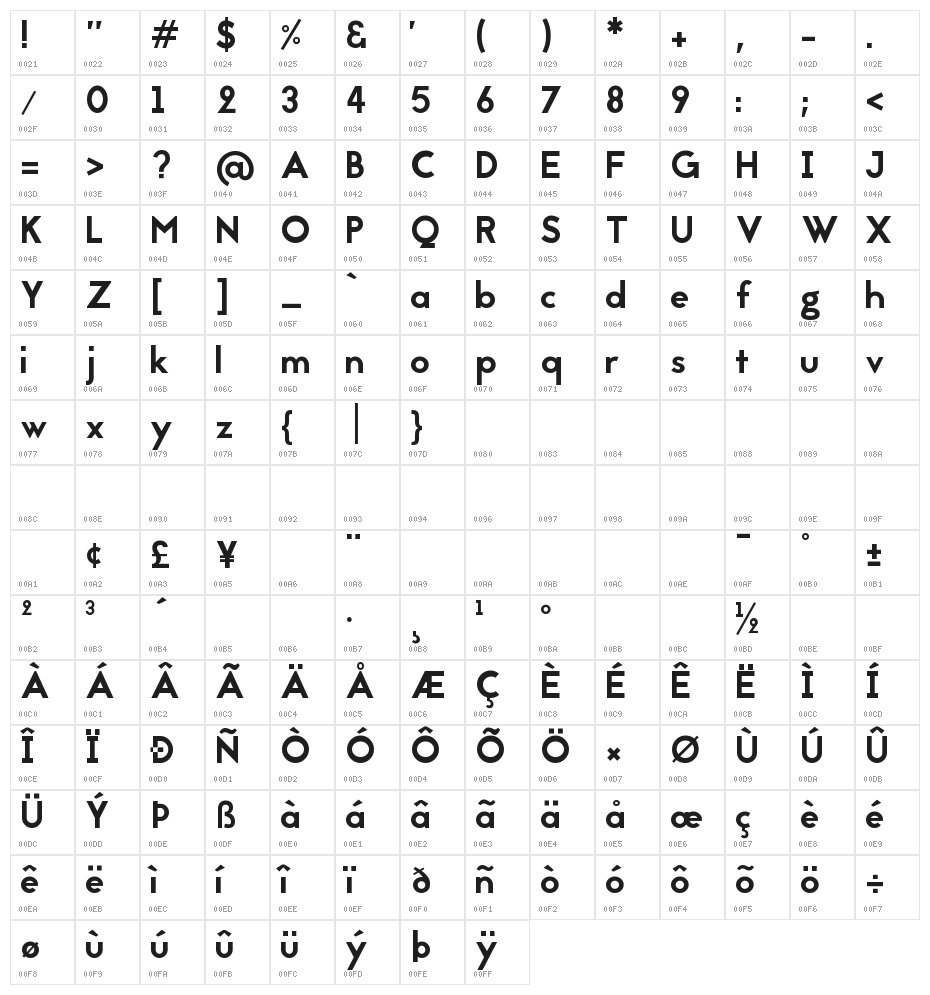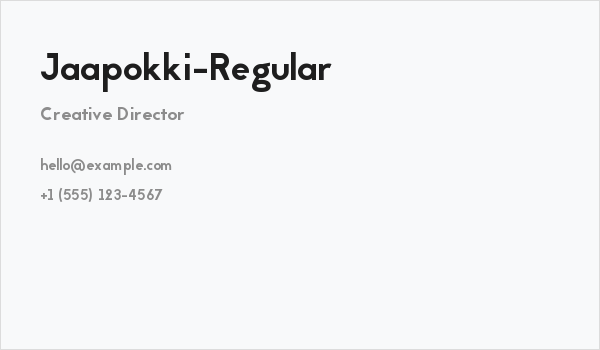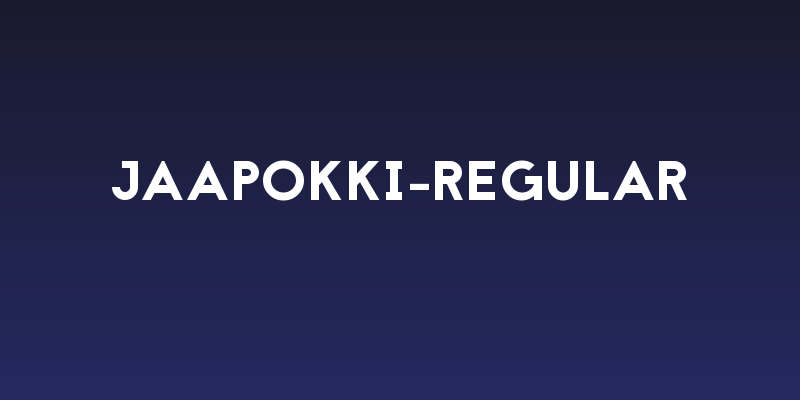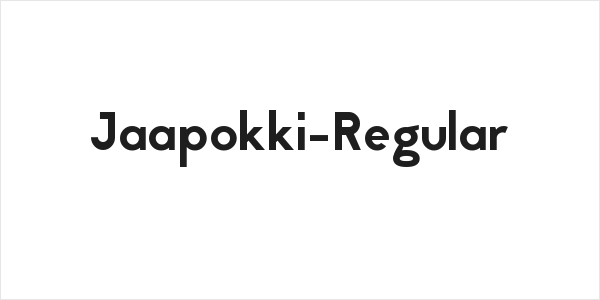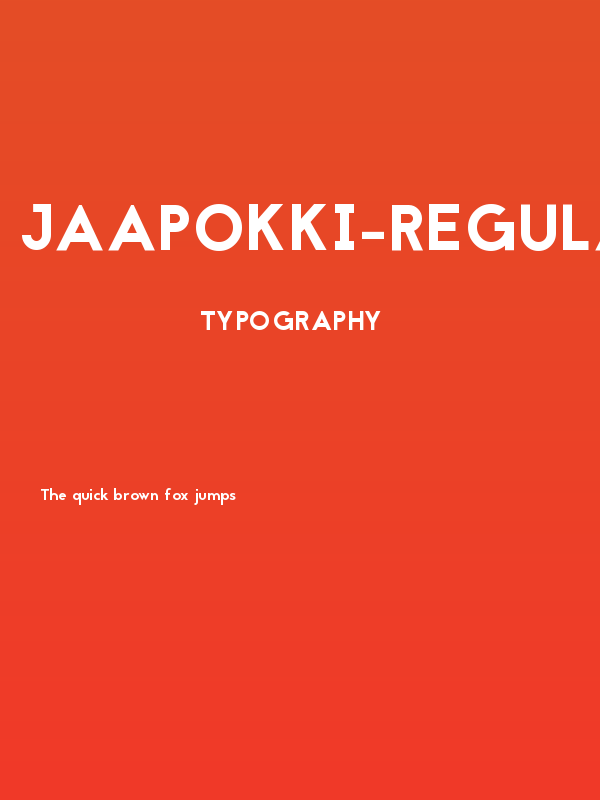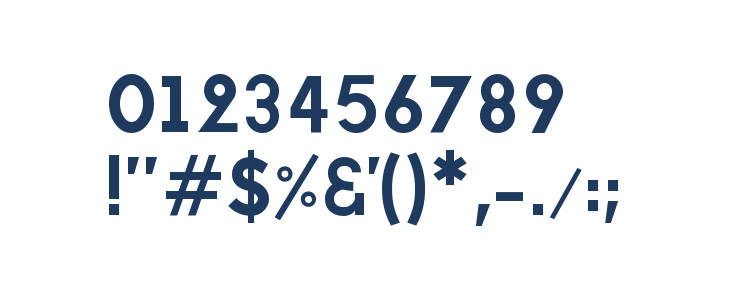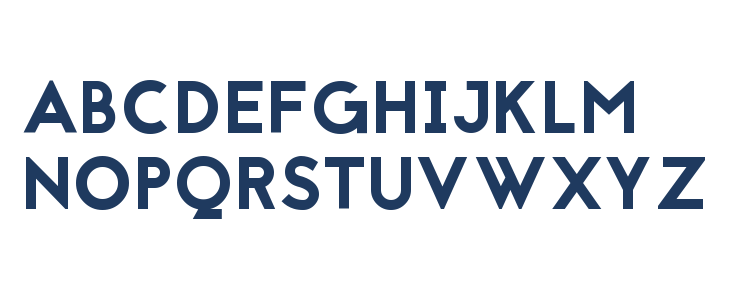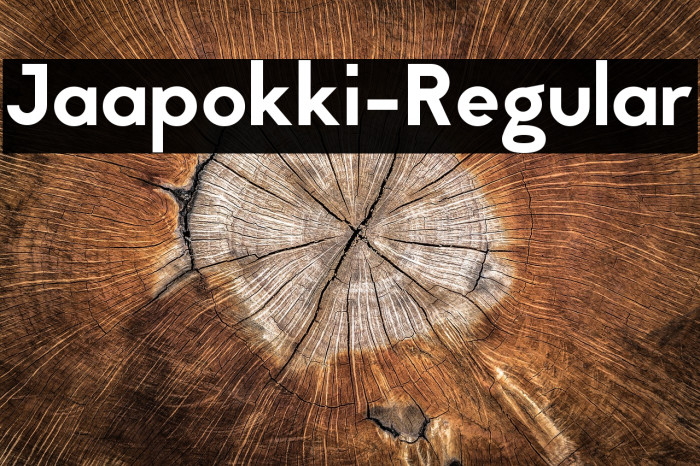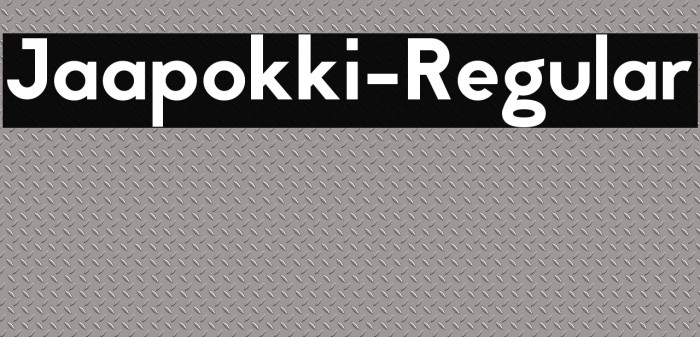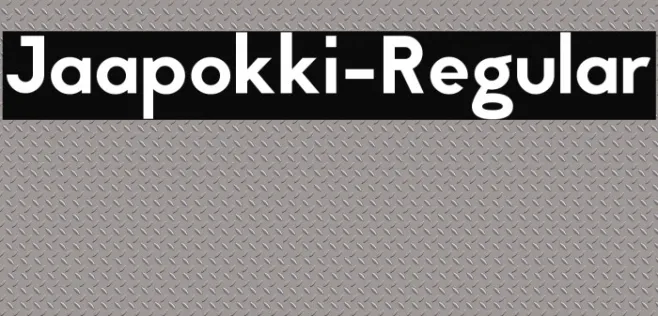
Jaapokki-Regular Font
Jaapokki-Regular Description
This font features a clean and modern sans-serif style with geometric influences. The characters are bold and well-defined, offering a strong presence on the page. The uppercase letters are uniform in height, while the lowercase letters maintain a consistent baseline, providing a harmonious and balanced appearance. The numerals are clear and easily distinguishable, making them suitable for various applications. Special characters are included, adding versatility to the font's use. The overall design is sleek and contemporary, making it ideal for digital and print media.
| Use Case | Headlines, Logos, Digital media |
| Proposed Projects | Ideal for branding, advertising, digital media, and editorial design. |